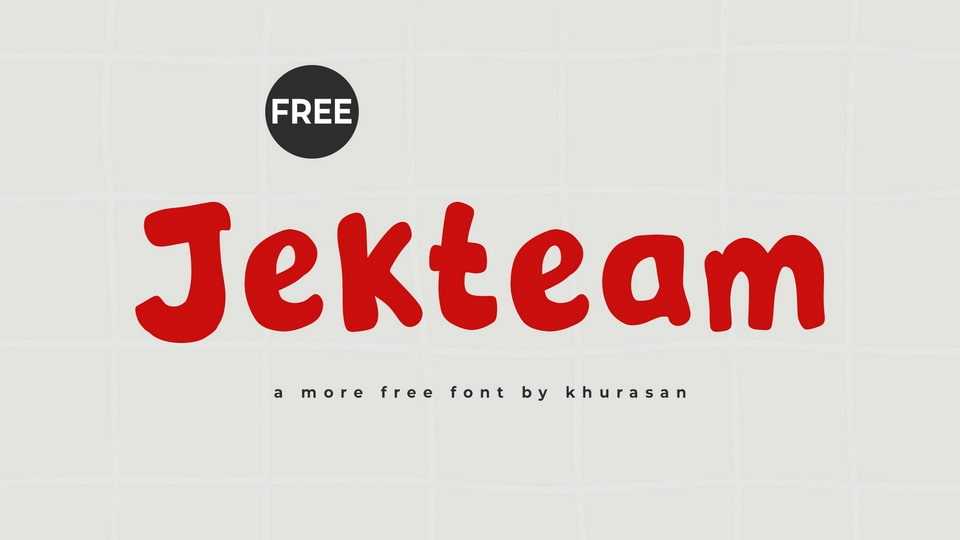
Download Jekteam font, a quirky and casual hand-drawn typeface with a warm, cheerful spirit. Its rounded, uneven letterforms mimic natural handwriting, giving it a down-to-earth and approachable vibe.